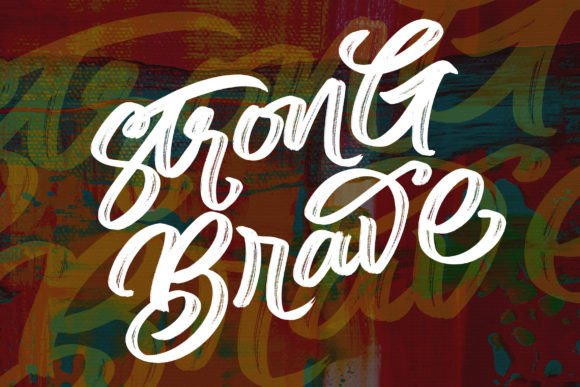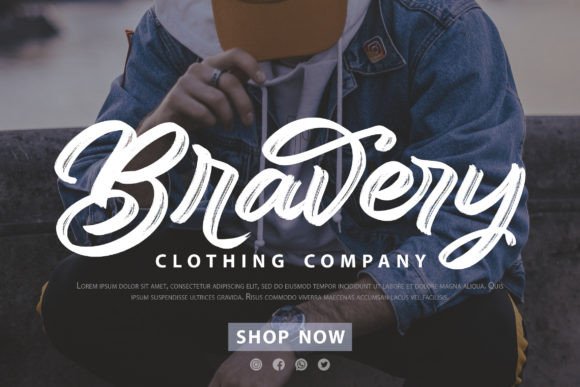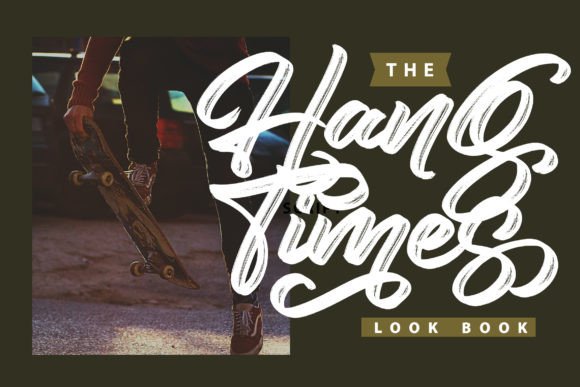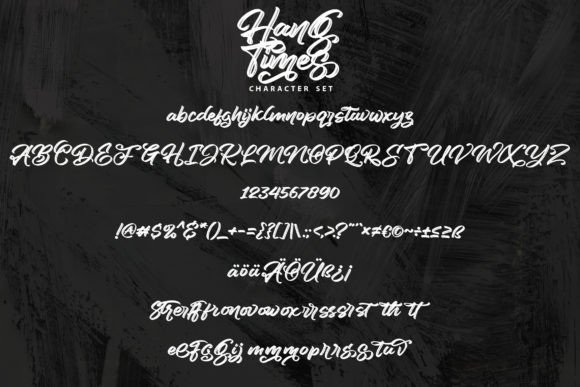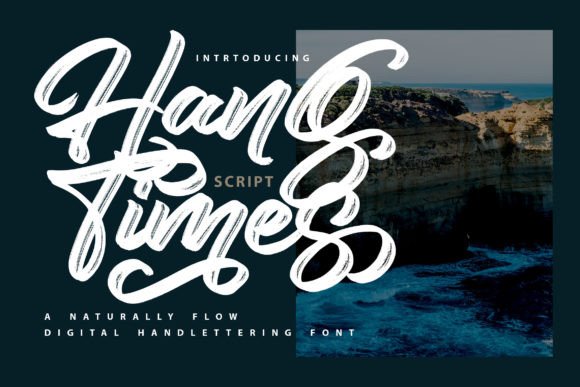
Introducing Hang Times Font: Elevate Your Designs with Elegance
In the world of typography, fonts play a crucial role in conveying the tone and personality of a brand or design. For designers and crafters seeking a stylish and elegant handwritten font, Hang Times is an exceptional choice. This beautiful font is characterized by smooth curves, making it perfect for fashion branding, editorial designs, and a wide range of creative projects.
What is Hang Times Font?
Hang Times is a stylish and incredibly elegant handwritten font, carefully crafted to bring a touch of sophistication to your designs. Its smooth, flowing curves create a sense of luxury and refinement, making it an ideal choice for projects that demand high-end typography. Whether you’re working on fashion branding, editorial designs, or any other creative project, Hang Times is sure to impress.
Key Features of Hang Times Font
• Smooth Curves: Hang Times boasts smooth, elegant curves that give it a luxurious feel, perfect for high-end designs.
• Elegant Handwritten Style: This font’s handwritten style adds a personal touch to your designs, making them stand out from the crowd.
• Fashion Branding: Hang Times is particularly well-suited for fashion branding, where style and elegance are paramount.
• Editorial Designs: The font’s classic, sophisticated look makes it an excellent choice for editorial designs, such as magazines, newspapers, and books.
• Endless Possibilities: With Hang Times, the possibilities are endless. Use it for logos, headings, packaging, or any other design project that requires a touch of elegance.
Why Choose Hang Times Font?
There are many fonts available, but Hang Times stands out for several reasons:
• Unique Style: Hang Times offers a unique, elegant style that will set your designs apart from others.
• Versatility: This font is versatile and can be used for a wide range of projects, from fashion branding to editorial designs.
• High-Quality: This font is of exceptionally high quality, ensuring that your designs look professional and polished.
Tips for Maximizing Hang Times Font
To get the most out of Hang Times, consider the following tips:
• Experiment with Sizes: Play around with different font sizes to find the perfect balance for your design.
• Pair with Other Fonts: Try pairing Hang Times with other fonts to create a unique and visually appealing design.
• Use for Headings and Titles: Hang Times is perfect for headings and titles, where its elegant style can shine.
• Keep it Simple: Don’t be afraid to keep your design simple and let Hang Times be the focal point.